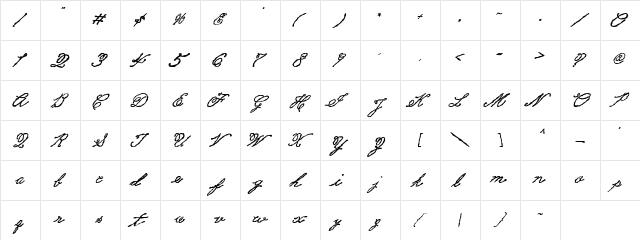
PC Old World Script Regular
Design Context for PC Old World Script Typeface
PC Old World Script flows with the natural rhythm of handwritten lettering, making it ideal for designs that call for warmth and personal expression.
Font Pairing: Combine PC Old World Script with a simple geometric sans for maximum contrast — the tension between flowing curves and clean structure is a classic typographic pairing.
Pro Tip: Pair PC Old World Script with a clean sans-serif for supporting text. The contrast between fluid script and geometric structure creates an elegant typographic hierarchy.